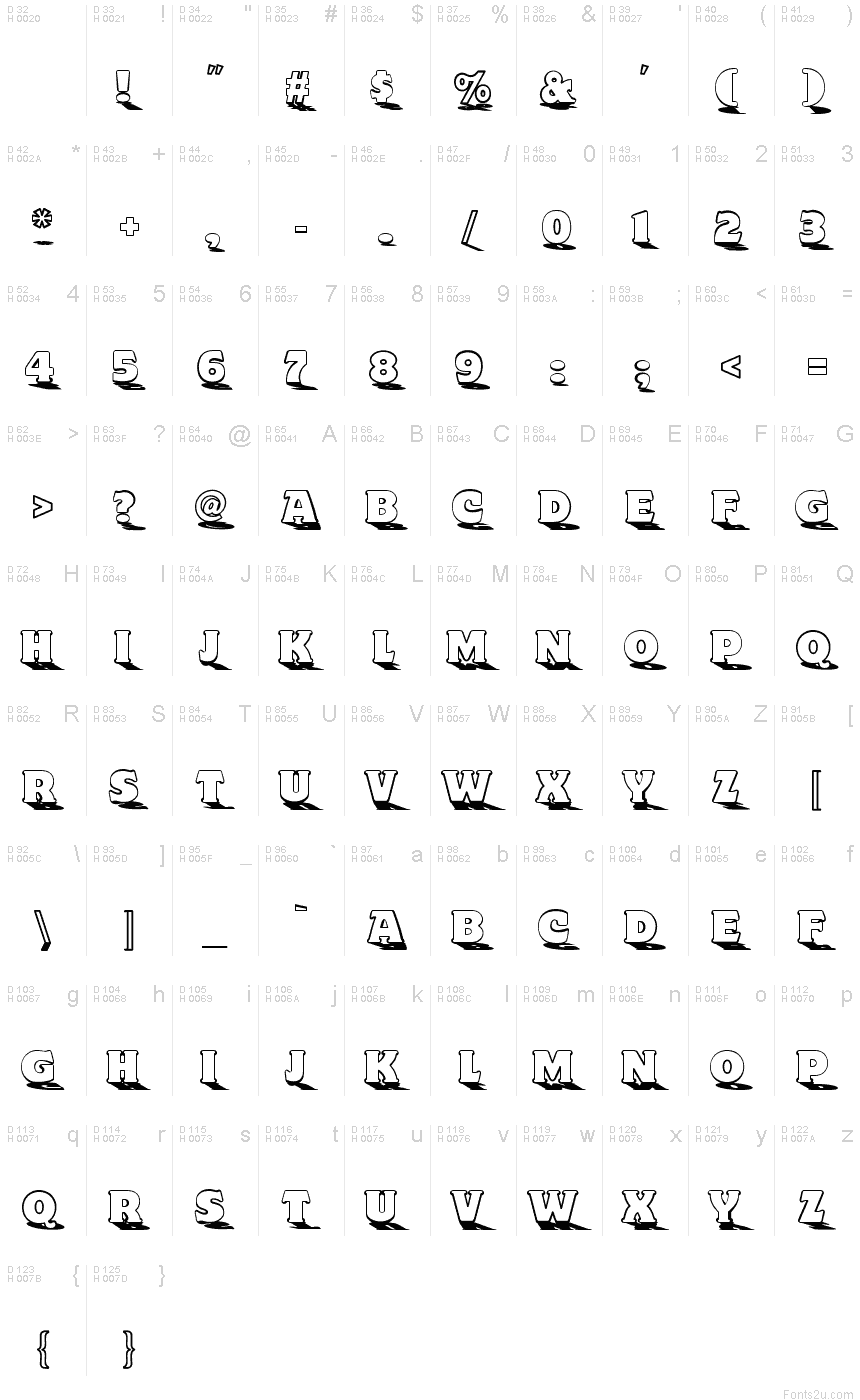
Toyland NF by Nick Curtis of Nick's Fonts is a free outlined slab serif display font with the cheerful heft of carnival lettering. Broad, rounded forms and a rough offset shadow give the capitals a hand-cut, slightly wobbly finish.
Its fairground style makes an apt centerpiece for circus posters and amusement-park signage. It also suits toy packaging and children's entertainment graphics. The chunky outlines and comic shadow are especially well matched to family audiences and playful brands.
Toyland NF